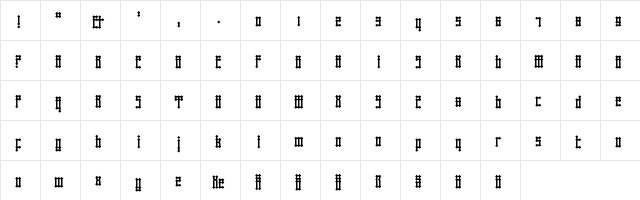
xe Callig Better Regular
| Designer | xenophilius |
Design Context for xe Callig Better Typeface
xe Callig Better is a composed and adaptable typeface that performs quietly and consistently across a wide range of design contexts.